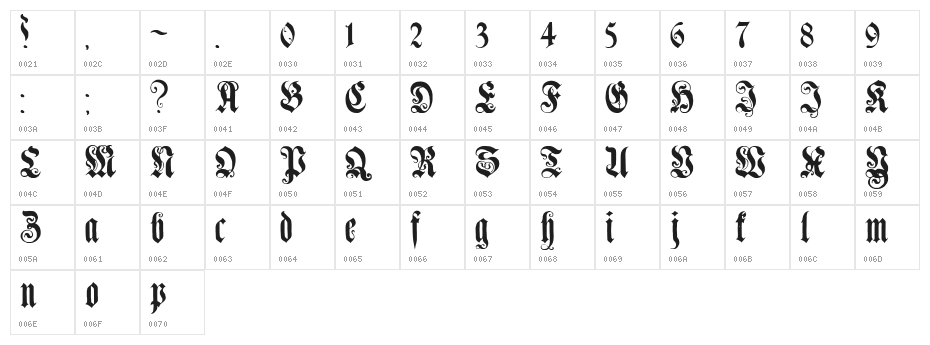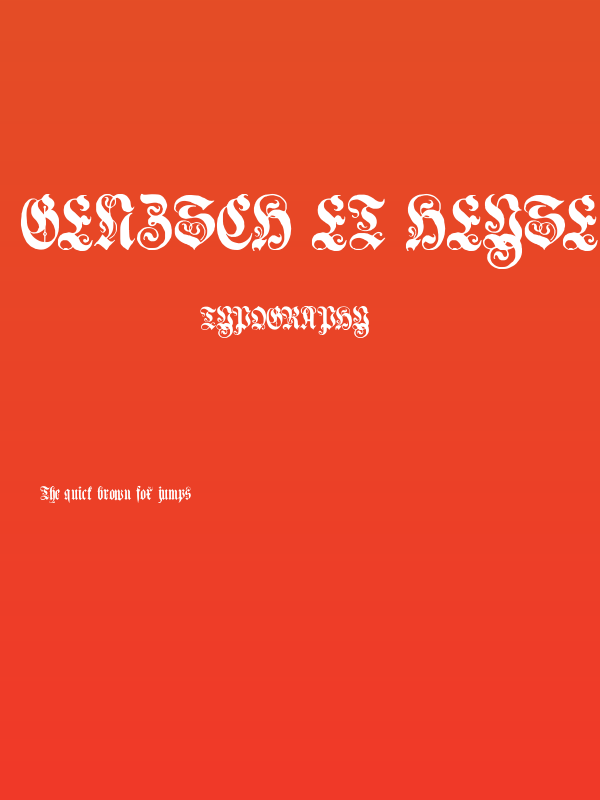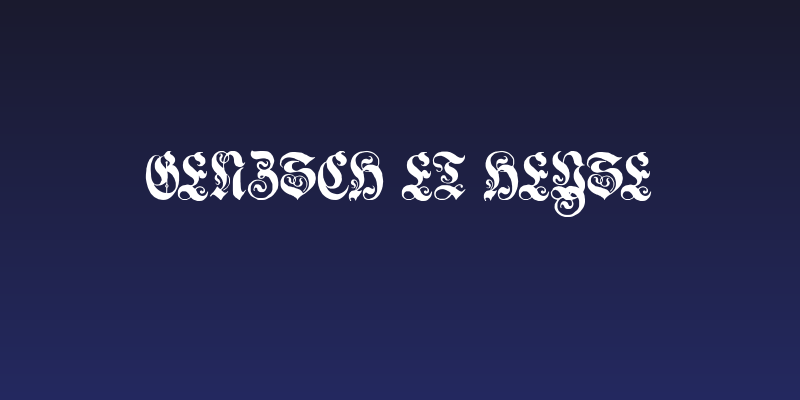
Genzsch Et Heyse Font
Genzsch Et Heyse Description
This font exhibits a classic blackletter style, characterized by its intricate and ornate design. The letters are bold and heavily stylized, with elaborate swashes and flourishes that give it a distinctly medieval appearance. The uppercase letters are particularly decorative, featuring sharp angles and dramatic curves, while the lowercase letters maintain a more consistent height and width, adding to the overall readability. The numerals are equally ornate, matching the elaborate style of the alphabet. This font is ideal for projects that require a historical or gothic aesthetic, such as themed event invitations, posters, or branding for vintage-inspired products.